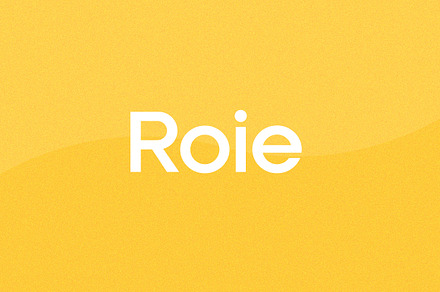
Roie Logo Font
A font drawn specifically for logo work, with tight spacing and letterforms that hold together as a single unit.
Logo type has different requirements to text: it is read as a shape rather than a sequence, which means cohesion matters more than legibility per character.
- Tight logo-oriented spacing
- Alternates and ligatures
Made for
- Logo and wordmark design
- Brand identity systems
- Packaging and signage
- Merch and apparel